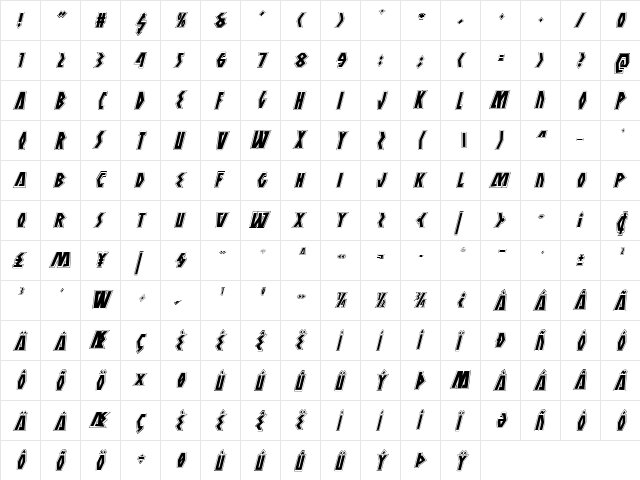
Antikythera Academy Italic Italic
Design Context for Antikythera Academy Italic Typeface
Antikythera Academy Italic is a composed and adaptable typeface that performs quietly and consistently across a wide range of design contexts. The slanted form adds forward momentum and visual energy.
Pro Tip: Try Antikythera Academy Italic for annotation and caption copy alongside an upright companion — the contrast in angle creates a dynamic but ordered typographic system.